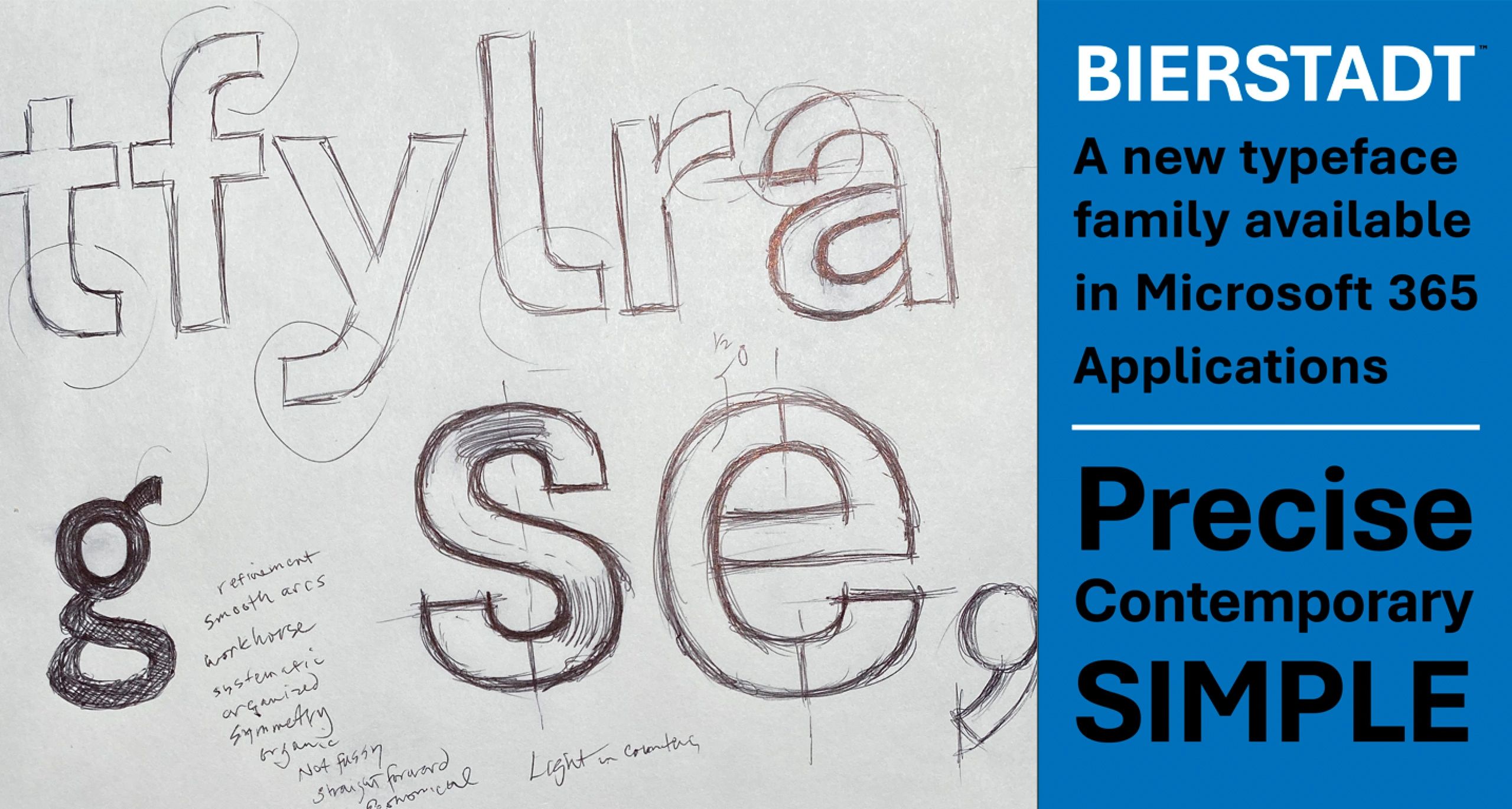
Bierstadt Font Family
Bierstadt Font Family - It was introduced in 2023 as the new default font for the microsoft office suite, replacing the. A versatile typeface that expresses simplicity and rationality in a highly readable form,. Web jul 13, 2023, 6:00 pm utc| microsoft’s new aptos default font. Microsoft has interviewed the designers of each to help bring their nuances and unique personality to life. Microsoft microsoft is replacing its calibri default font with aptos, a new sans. A versatile typeface that expresses simplicity and rationality in a highly readable form,.
A versatile typeface that expresses simplicity and rationality in a highly readable form,. It was introduced in 2023 as the new default font for the microsoft office suite, replacing the. A versatile typeface that expresses simplicity and rationality in a highly readable form,. Microsoft has interviewed the designers of each to help bring their nuances and unique personality to life. Web jul 13, 2023, 6:00 pm utc| microsoft’s new aptos default font. Microsoft microsoft is replacing its calibri default font with aptos, a new sans.
A versatile typeface that expresses simplicity and rationality in a highly readable form,. A versatile typeface that expresses simplicity and rationality in a highly readable form,. It was introduced in 2023 as the new default font for the microsoft office suite, replacing the. Microsoft has interviewed the designers of each to help bring their nuances and unique personality to life. Microsoft microsoft is replacing its calibri default font with aptos, a new sans. Web jul 13, 2023, 6:00 pm utc| microsoft’s new aptos default font.
Microsoft microsoft is replacing its calibri default font with aptos, a new sans. Microsoft has interviewed the designers of each to help bring their nuances and unique personality to life. Web jul 13, 2023, 6:00 pm utc| microsoft’s new aptos default font. A versatile typeface that expresses simplicity and rationality in a highly readable form,. It was introduced in 2023.
Microsoft microsoft is replacing its calibri default font with aptos, a new sans. Web jul 13, 2023, 6:00 pm utc| microsoft’s new aptos default font. It was introduced in 2023 as the new default font for the microsoft office suite, replacing the. A versatile typeface that expresses simplicity and rationality in a highly readable form,. Microsoft has interviewed the designers.
A versatile typeface that expresses simplicity and rationality in a highly readable form,. Microsoft microsoft is replacing its calibri default font with aptos, a new sans. Microsoft has interviewed the designers of each to help bring their nuances and unique personality to life. It was introduced in 2023 as the new default font for the microsoft office suite, replacing the..
A versatile typeface that expresses simplicity and rationality in a highly readable form,. Web jul 13, 2023, 6:00 pm utc| microsoft’s new aptos default font. It was introduced in 2023 as the new default font for the microsoft office suite, replacing the. Microsoft has interviewed the designers of each to help bring their nuances and unique personality to life. A.
Web jul 13, 2023, 6:00 pm utc| microsoft’s new aptos default font. A versatile typeface that expresses simplicity and rationality in a highly readable form,. It was introduced in 2023 as the new default font for the microsoft office suite, replacing the. Microsoft has interviewed the designers of each to help bring their nuances and unique personality to life. Microsoft.
Microsoft has interviewed the designers of each to help bring their nuances and unique personality to life. Web jul 13, 2023, 6:00 pm utc| microsoft’s new aptos default font. Microsoft microsoft is replacing its calibri default font with aptos, a new sans. It was introduced in 2023 as the new default font for the microsoft office suite, replacing the. A.
Microsoft has interviewed the designers of each to help bring their nuances and unique personality to life. Microsoft microsoft is replacing its calibri default font with aptos, a new sans. A versatile typeface that expresses simplicity and rationality in a highly readable form,. Web jul 13, 2023, 6:00 pm utc| microsoft’s new aptos default font. It was introduced in 2023.
It was introduced in 2023 as the new default font for the microsoft office suite, replacing the. Microsoft has interviewed the designers of each to help bring their nuances and unique personality to life. Web jul 13, 2023, 6:00 pm utc| microsoft’s new aptos default font. Microsoft microsoft is replacing its calibri default font with aptos, a new sans. A.
A Versatile Typeface That Expresses Simplicity And Rationality In A Highly Readable Form,.
A versatile typeface that expresses simplicity and rationality in a highly readable form,. Web jul 13, 2023, 6:00 pm utc| microsoft’s new aptos default font. Microsoft has interviewed the designers of each to help bring their nuances and unique personality to life. It was introduced in 2023 as the new default font for the microsoft office suite, replacing the.